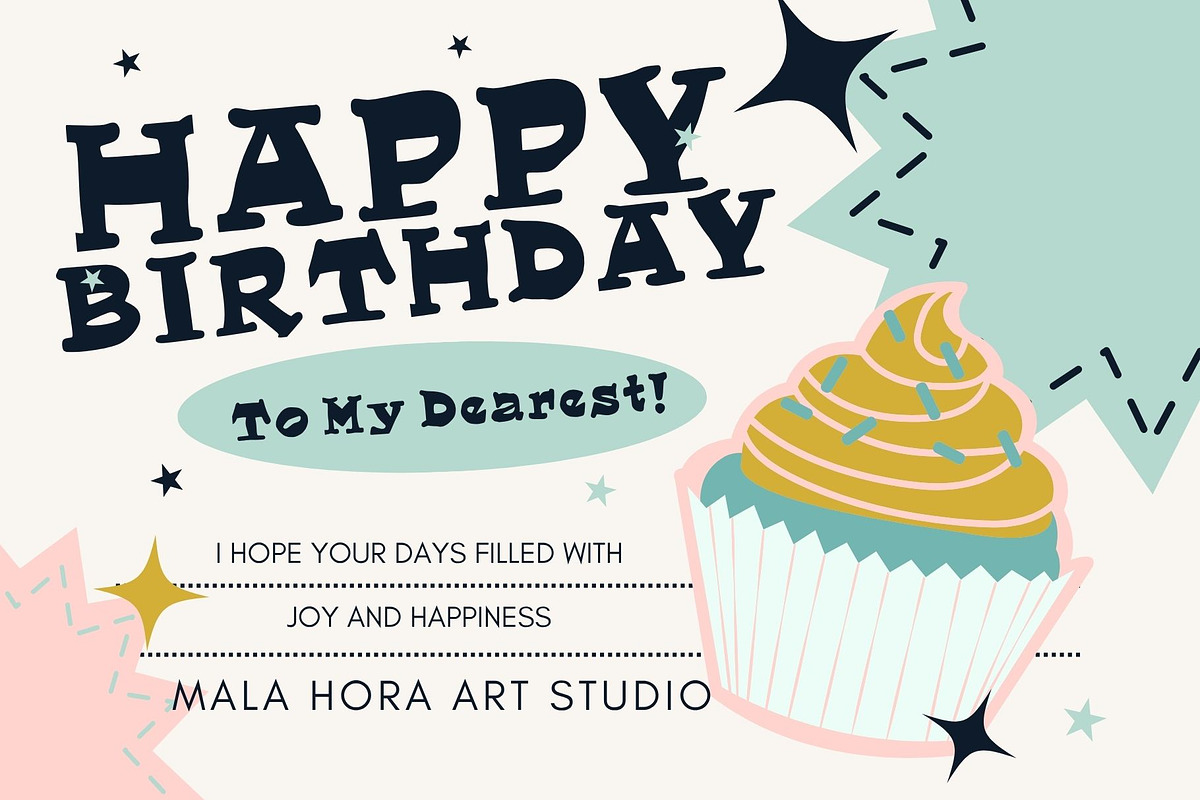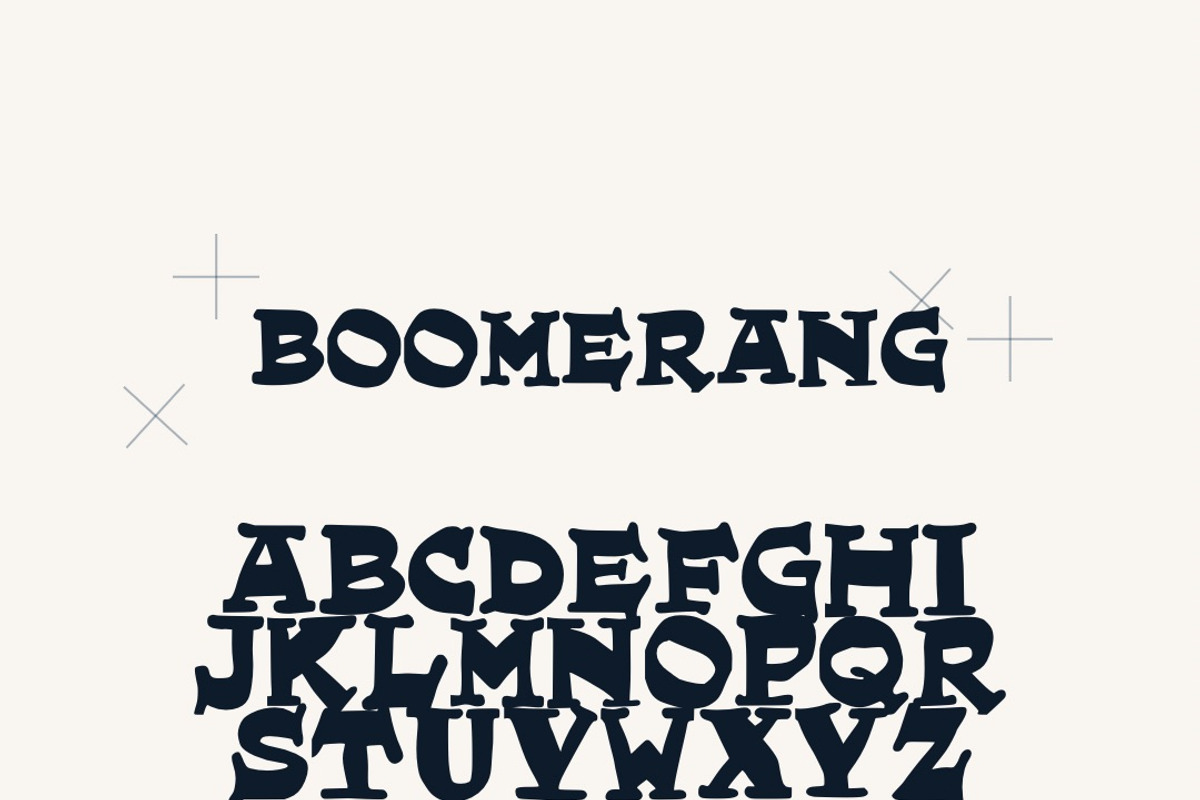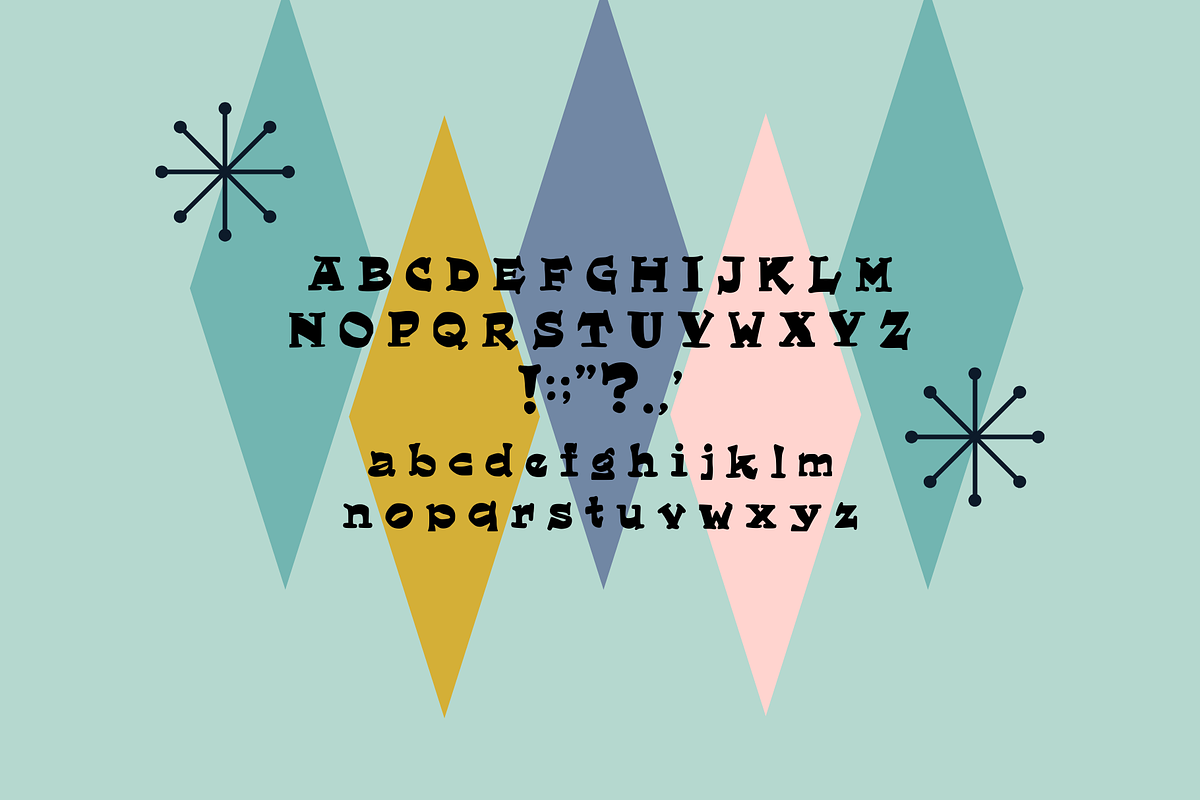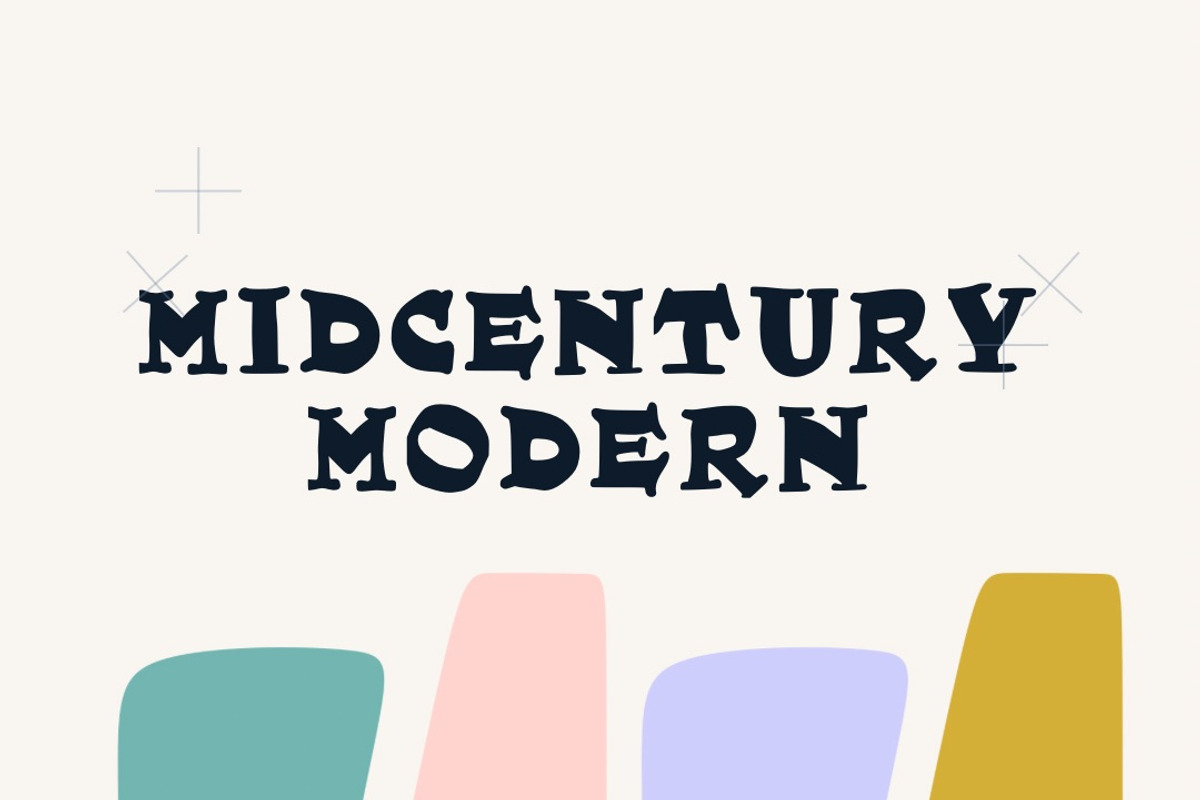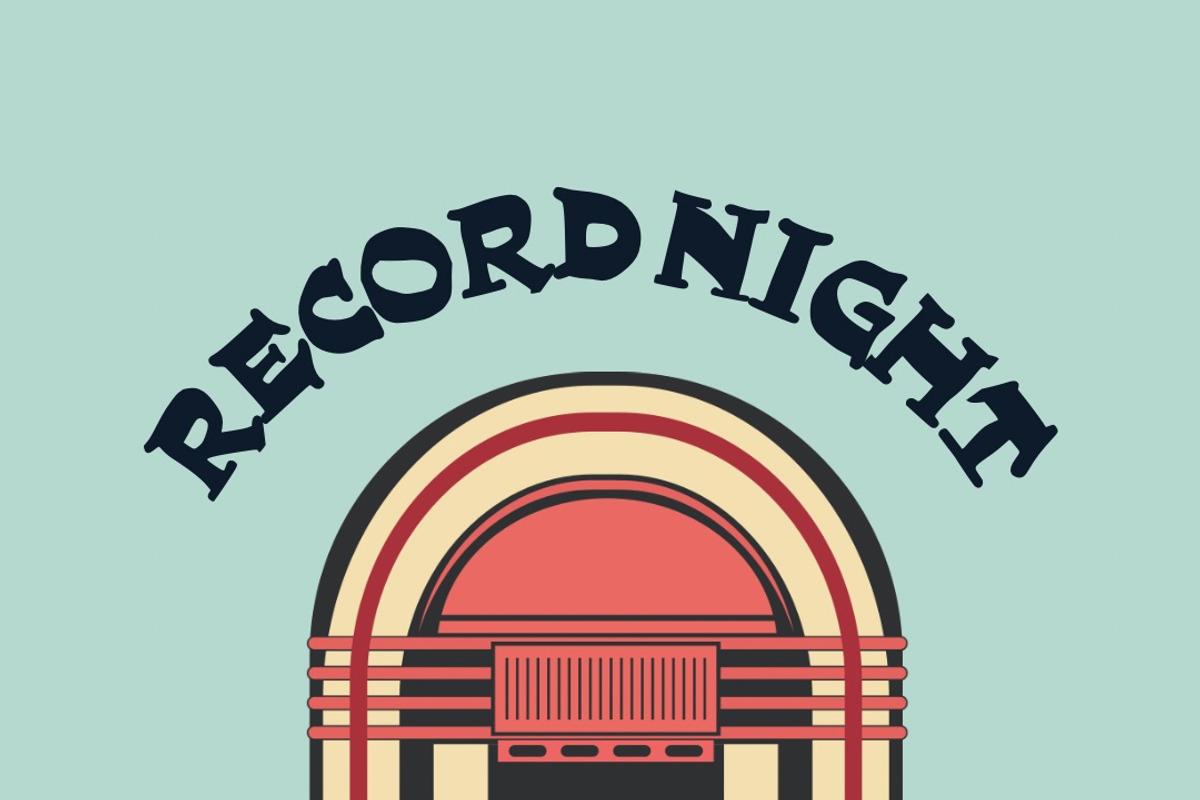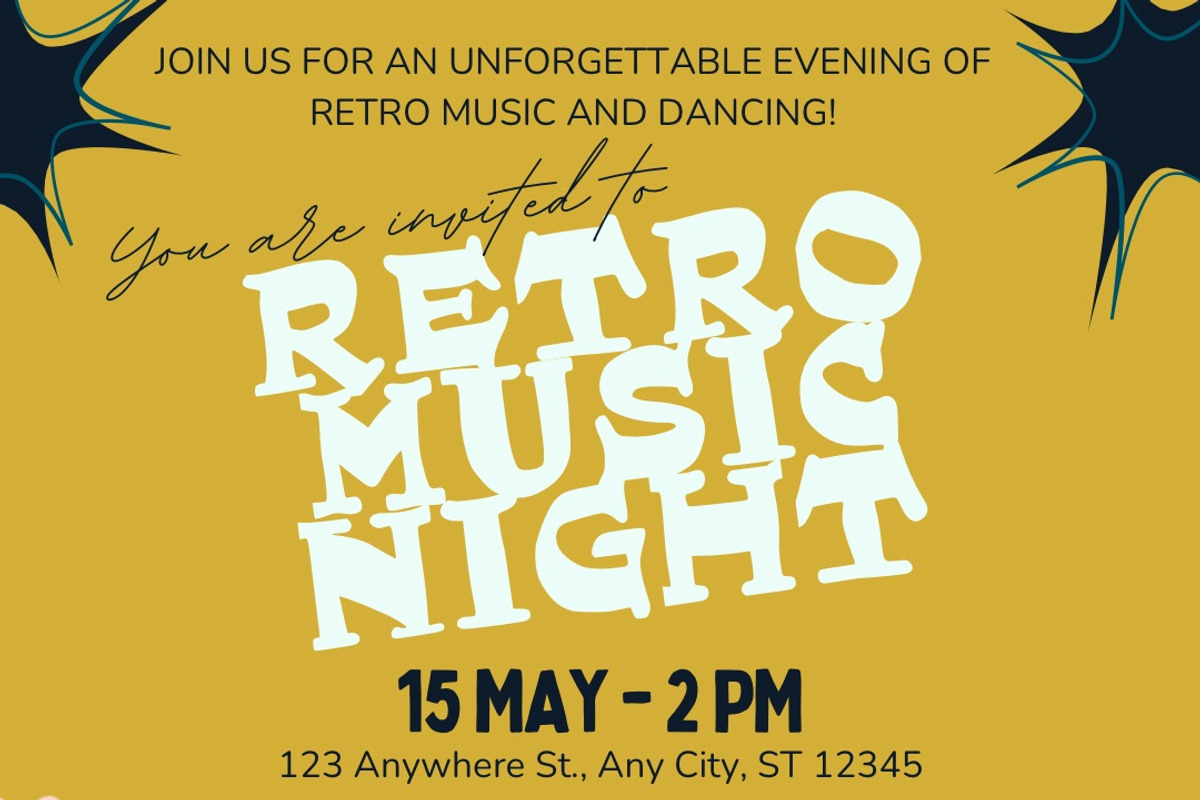
BOOMERANG Midcentury Modern Font
Step back into the golden age of design with Boomerang, a bold, playful midcentury modern typeface inspired by 1950s signage, retro ads, and space-age optimism. Its rounded edges, dynamic curves, and geometric balance make it the perfect font for logos, posters, branding, and packaging that need a pop of vintage flair. MALA HORA ARTIST STUDIO fonts are always hand-drawn. But that's not all — Boomerang comes with 27 bonus hand-drawn illustrations, perfect for pairing with your text!